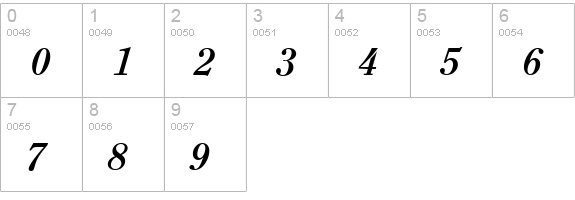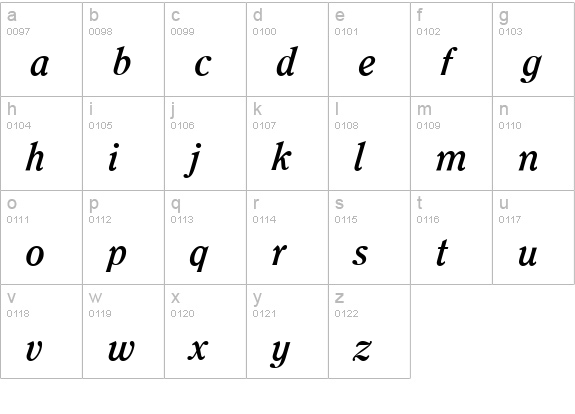
Clearface-BoldItalic Font Details
Clearface-BoldItalic is a stylish and modern font that exudes sophistication and elegance. With its unique blend of boldness and italicized flair, this font is perfect for making a strong statement in any design project. The clean lines and sharp angles of Clearface-BoldItalic give it a sleek and polished look that is sure to capture attention. Whether you are designing a logo, creating a poster, or working on a website, Clearface-BoldItalic will add a touch of class and professionalism to your work. Its versatility makes it suitable for a wide range of applications, from branding to editorial design. And the best part? Clearface-BoldItalic is completely free to download at FontsMarket.com. So you can add this beautiful font to your collection without breaking the bank. Don't miss out on the opportunity to enhance your designs with the timeless elegance of Clearface-BoldItalic. Download it today and see the difference it can make!